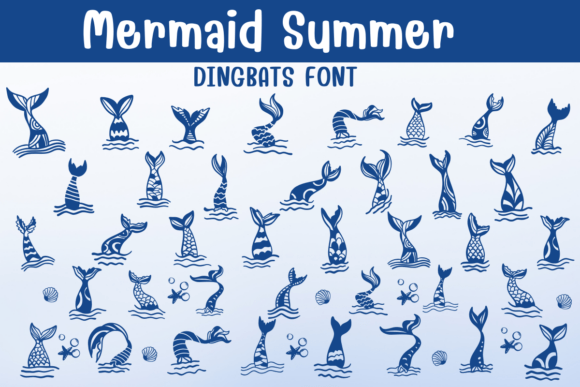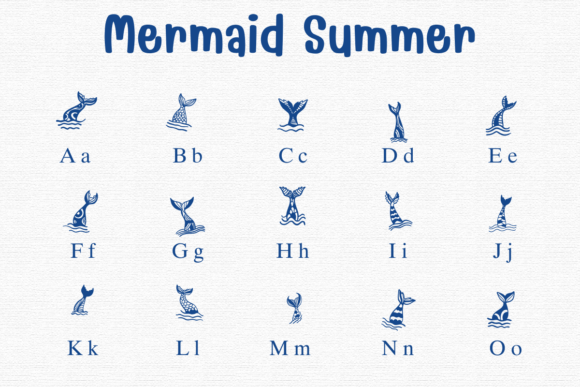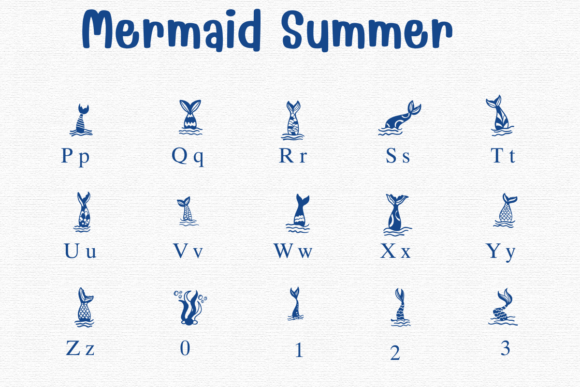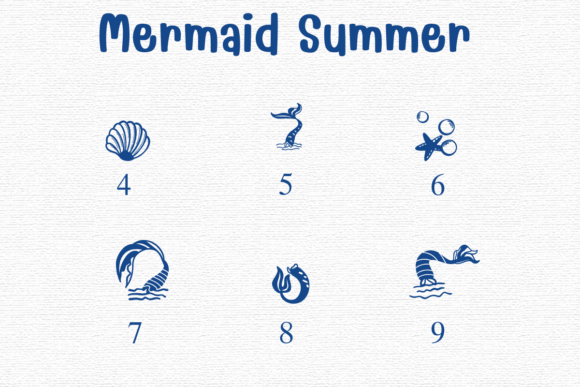
Mermaid Summer Font
About the Mermaid Summer Font
The Mermaid Summer Font is here to transform your projects with its distinctive character and style. Mermaid summer is a dingbats font with a sketch style. This font can enhance your creative projects such as wedding invitations, DIY, crafts, decorations, logos, and many other creative ideas.
Mermaid Summer’s sketched style is ideal for projects requiring a lighthearted, whimsical touch. It excels in applications like branding for small businesses with a handcrafted feel, wedding stationery, and illustrative posters where its playful nature adds visual interest. However, its informal character makes it unsuitable for large blocks of body text or user interfaces demanding high readability.
Consider pairing Mermaid Summer with a clean sans-serif like Open Sans for contrast, balancing its sketched informality with a modern, legible typeface. For a more elegant feel, a delicate serif like Lora would complement its hand-drawn quality, creating a sophisticated yet playful combination. Avoid pairing it with overly geometric or heavily condensed fonts which could clash with its organic character.
The font projects a friendly, approachable personality, best suited for brands emphasizing creativity, handmade artistry, or a summery, carefree aesthetic.